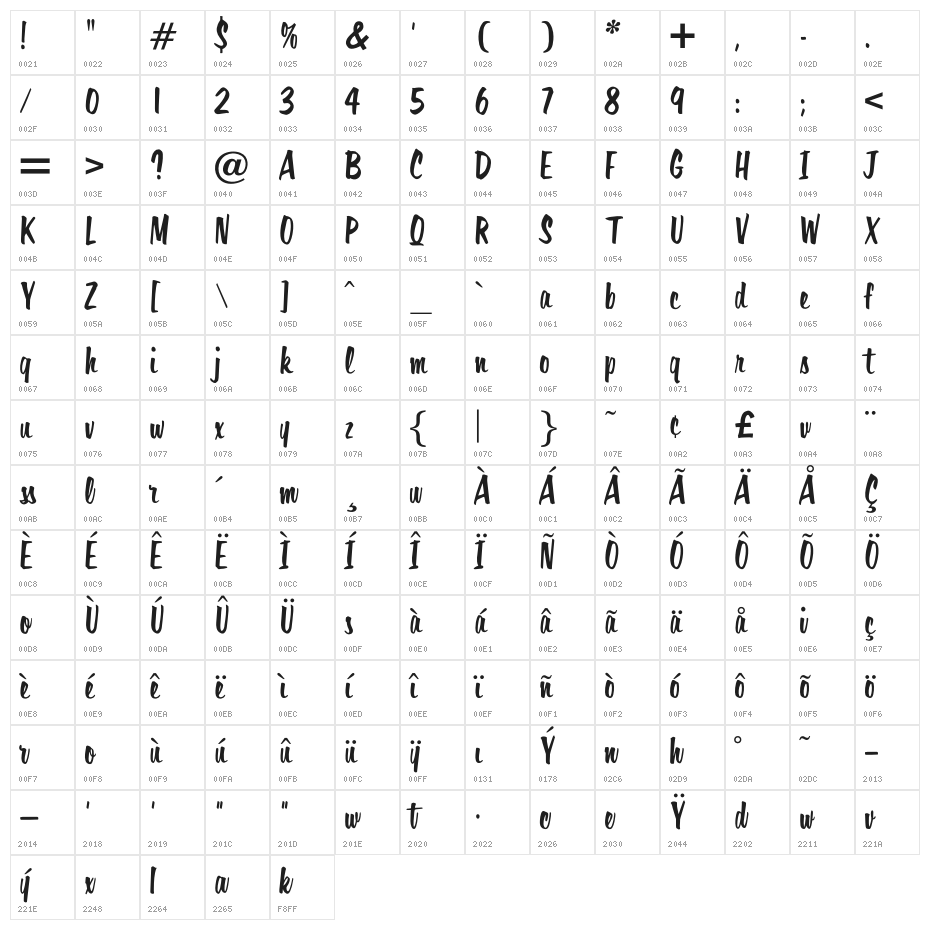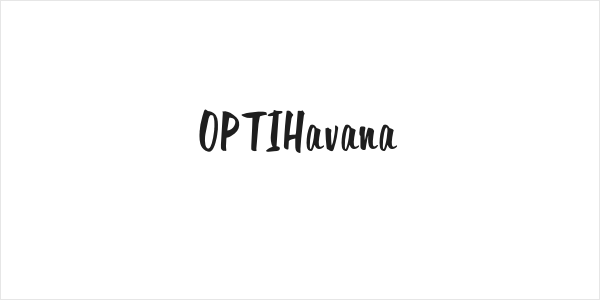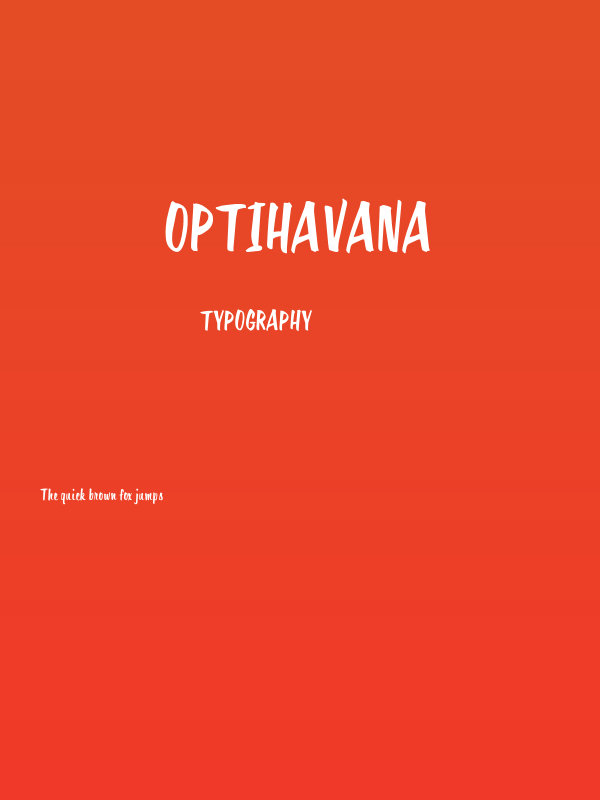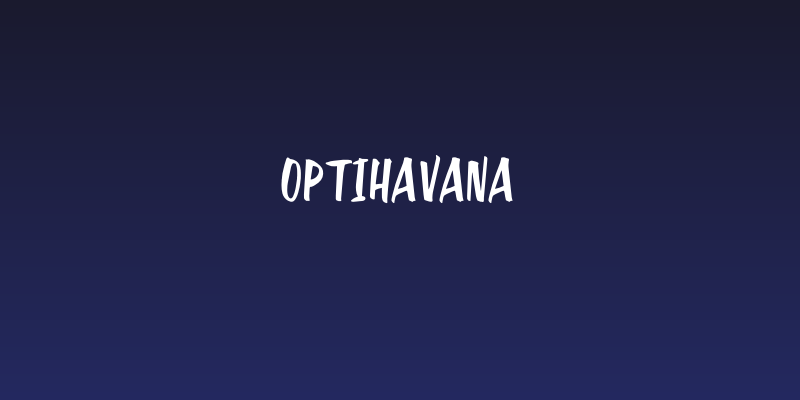
OPTIHavana Font
OPTIHavana Description
This font exudes a lively and energetic character with its bold, brush-like strokes. The uppercase letters are robust and dynamic, featuring a slight slant that adds a sense of motion. The lowercase letters maintain this energetic style, with some characters having distinctive loops and curves that enhance its playful nature. The numerals are equally bold, ensuring they stand out in any design. Special characters are crafted with the same attention to detail, making them cohesive with the rest of the font. Overall, this font is perfect for projects that require a touch of creativity and flair.
OPTIHAVANA UPPERCASE
OPTIHAVANA LOWERCASE
OPTIHAVANA OTHER CHARS
| Proposed Projects | Ideal for posters, branding, packaging, and any creative design projects that require a bold statement. |